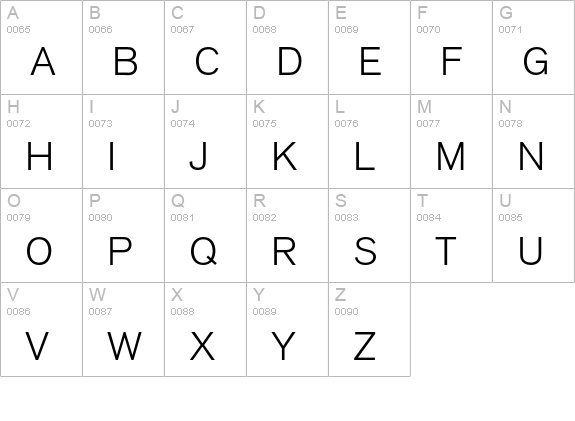
VolvoSansLight Font Details
VolvoSansLight is a sleek and modern typeface that exudes elegance and sophistication. This refined font is perfect for a wide range of design projects, from corporate branding to editorial layouts. Its clean lines and minimalist aesthetic make it versatile and easy to read, while still maintaining a unique personality. With its light weight and subtle curves, VolvoSansLight adds a touch of sophistication to any design. Whether you're working on a logo, website, or printed materials, this font will enhance your project and make it stand out from the crowd. The best part? VolvoSansLight is completely free to download at FontsMarket.com. Yes, you heard it right - this high-quality font can be yours without spending a dime. FontsMarket.com is a trusted source for thousands of fonts, and VolvoSansLight is just one of the many amazing options available. So why wait? Download VolvoSansLight today and elevate your designs to new heights. Whether you're a professional designer or someone looking to add a touch of style to your personal projects, this font is a must-have. Don't miss out on this incredible opportunity to get a top-notch font for free. Visit FontsMarket.com now and let your creativity soar with VolvoSansLight.